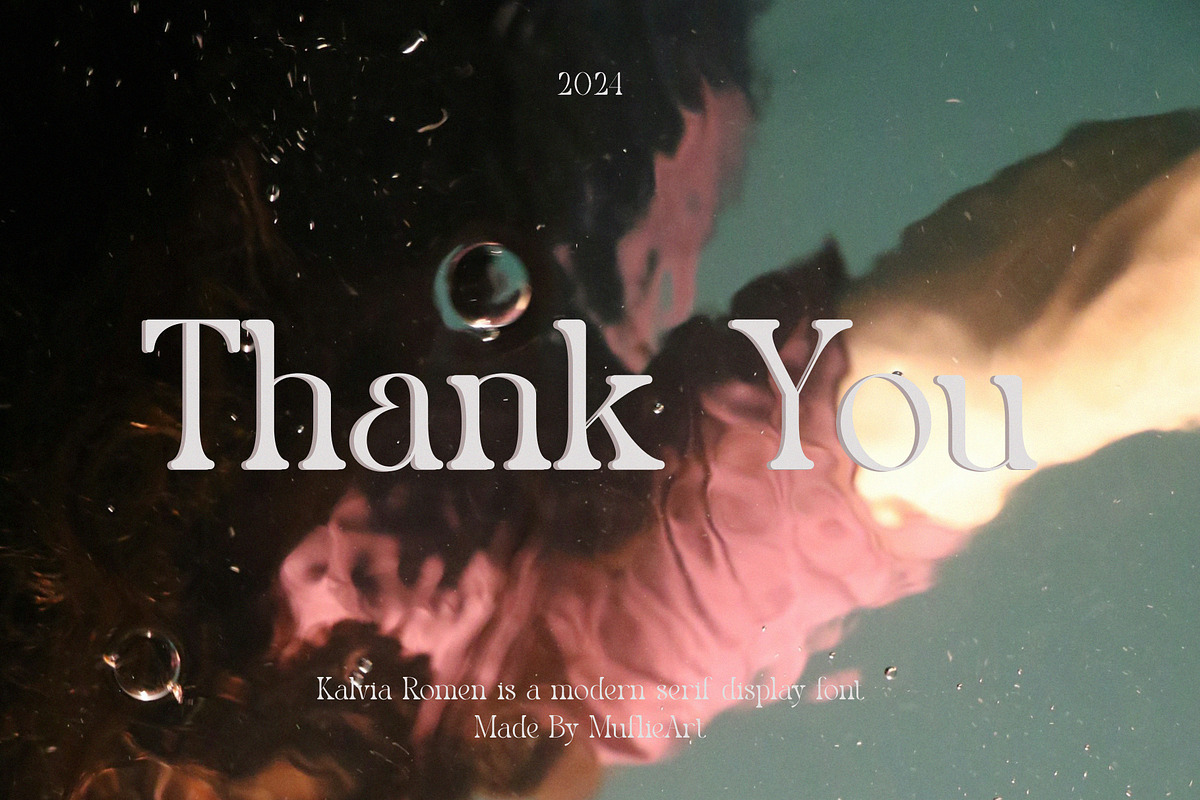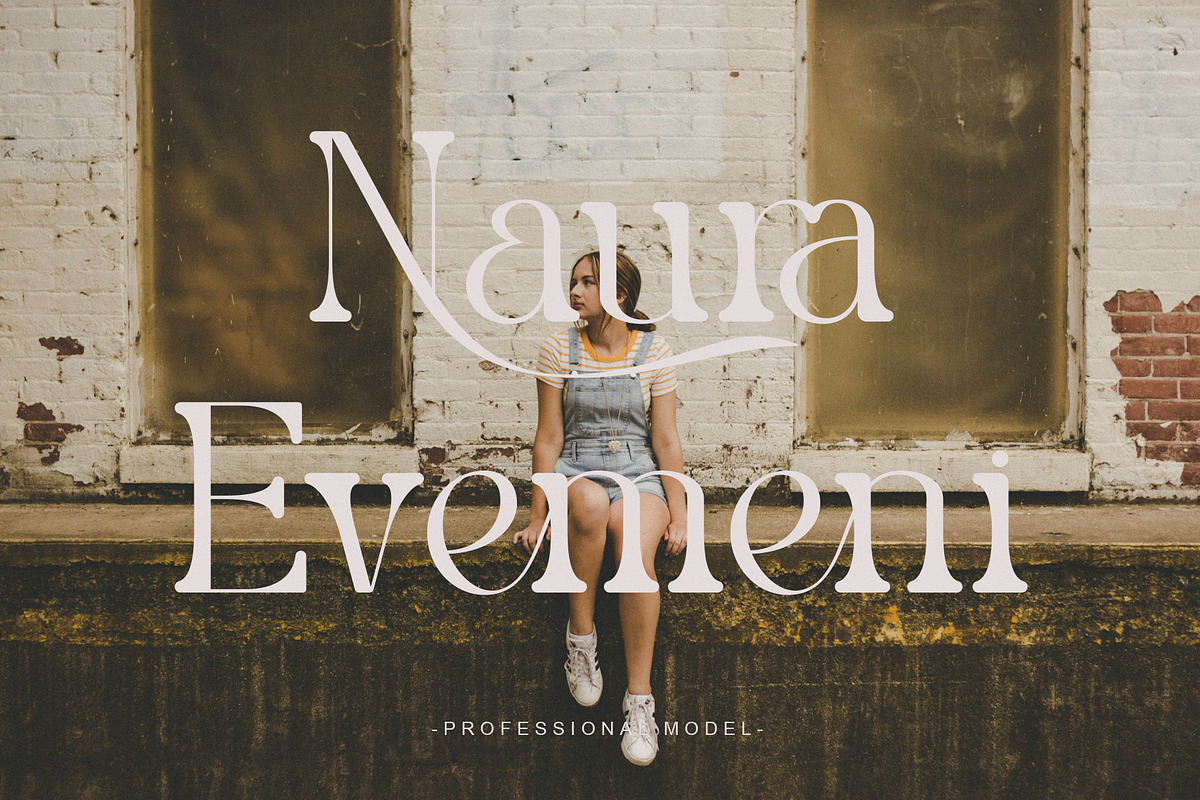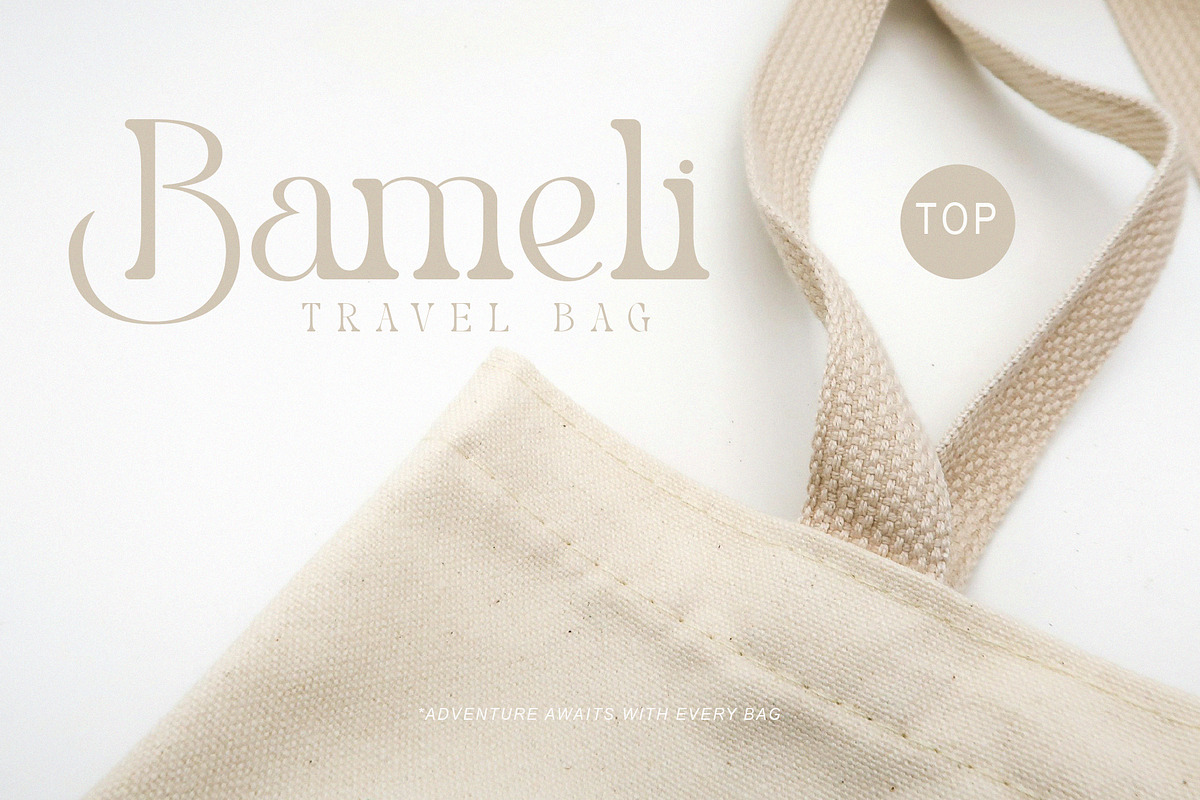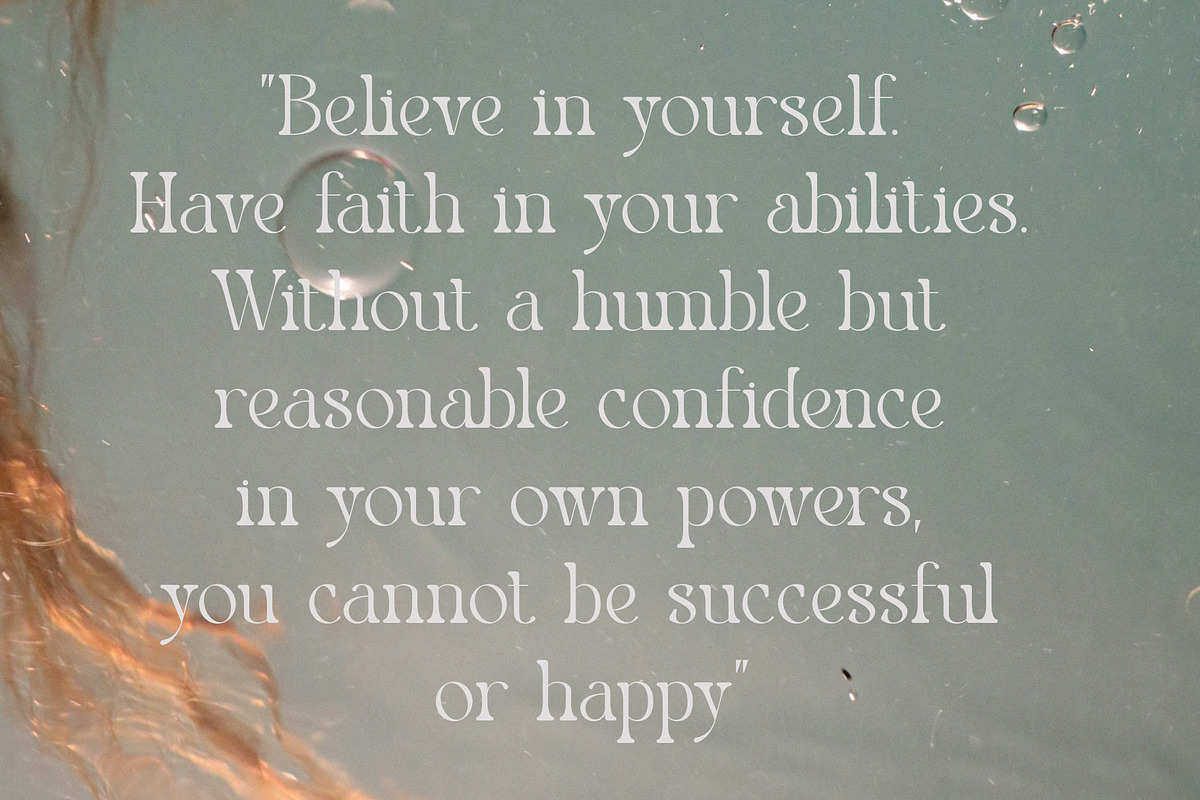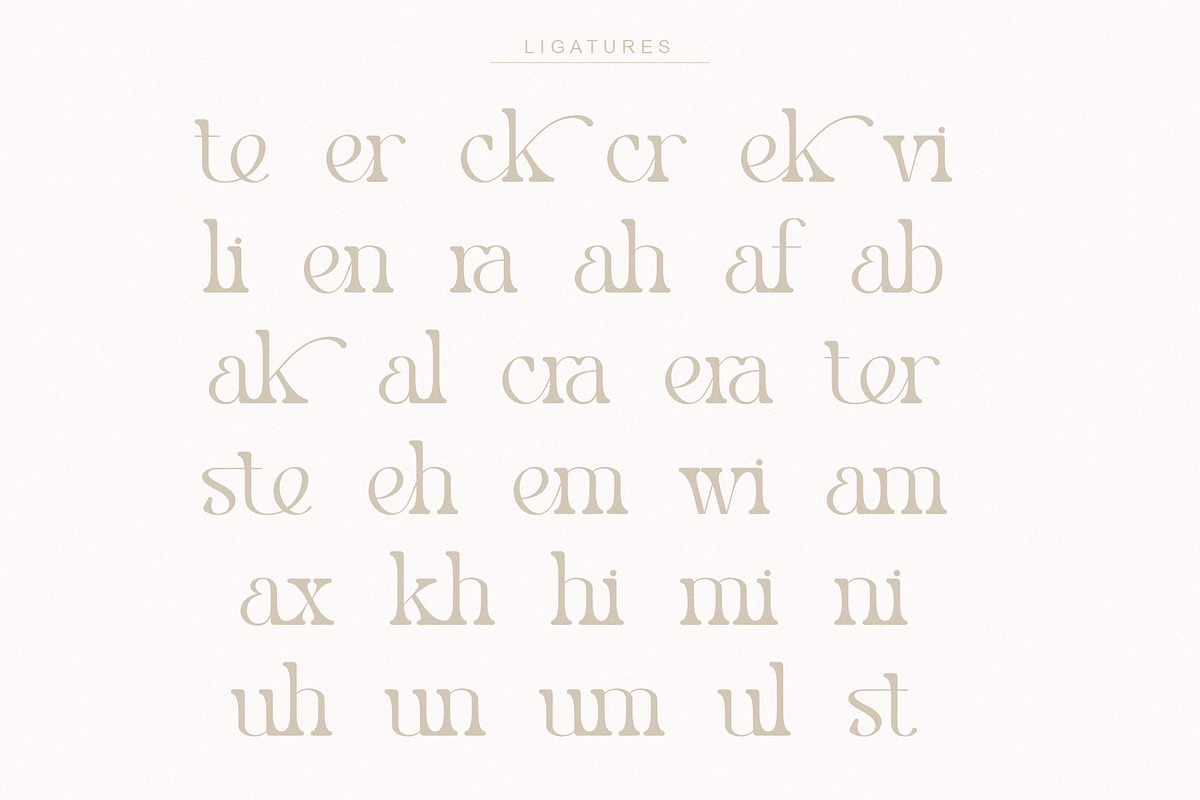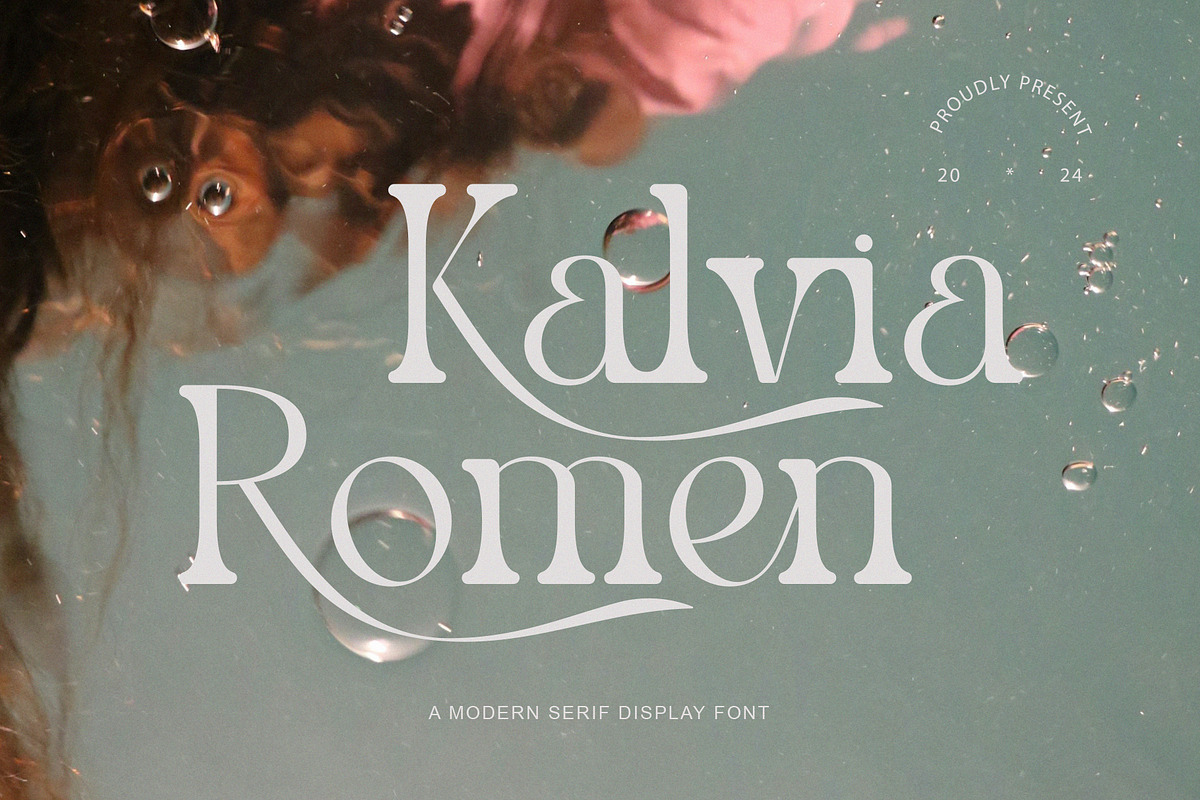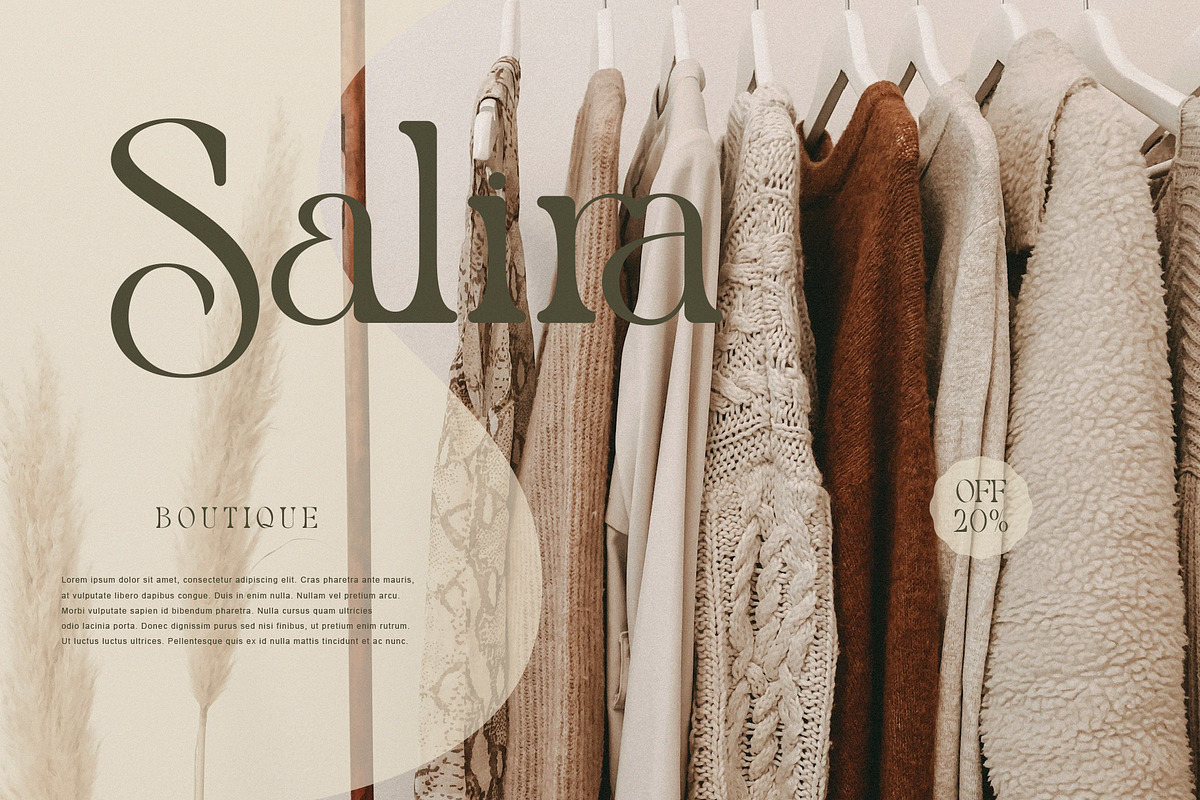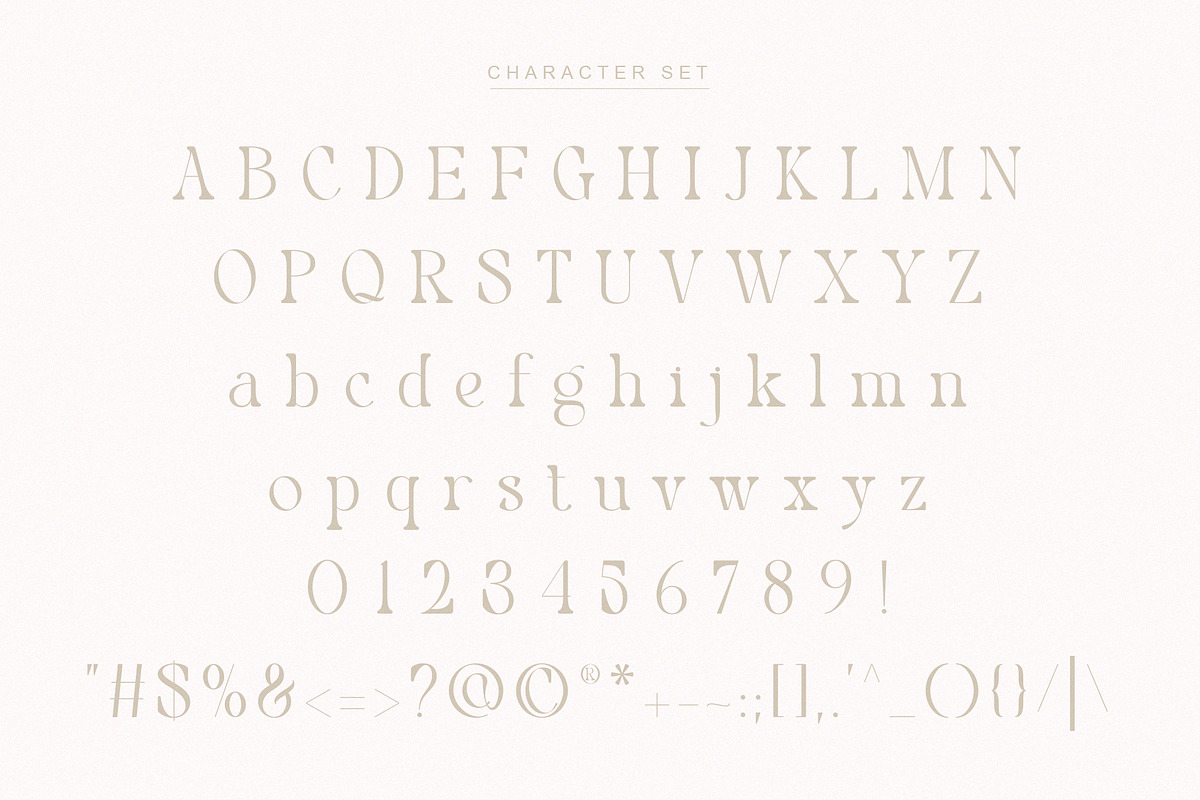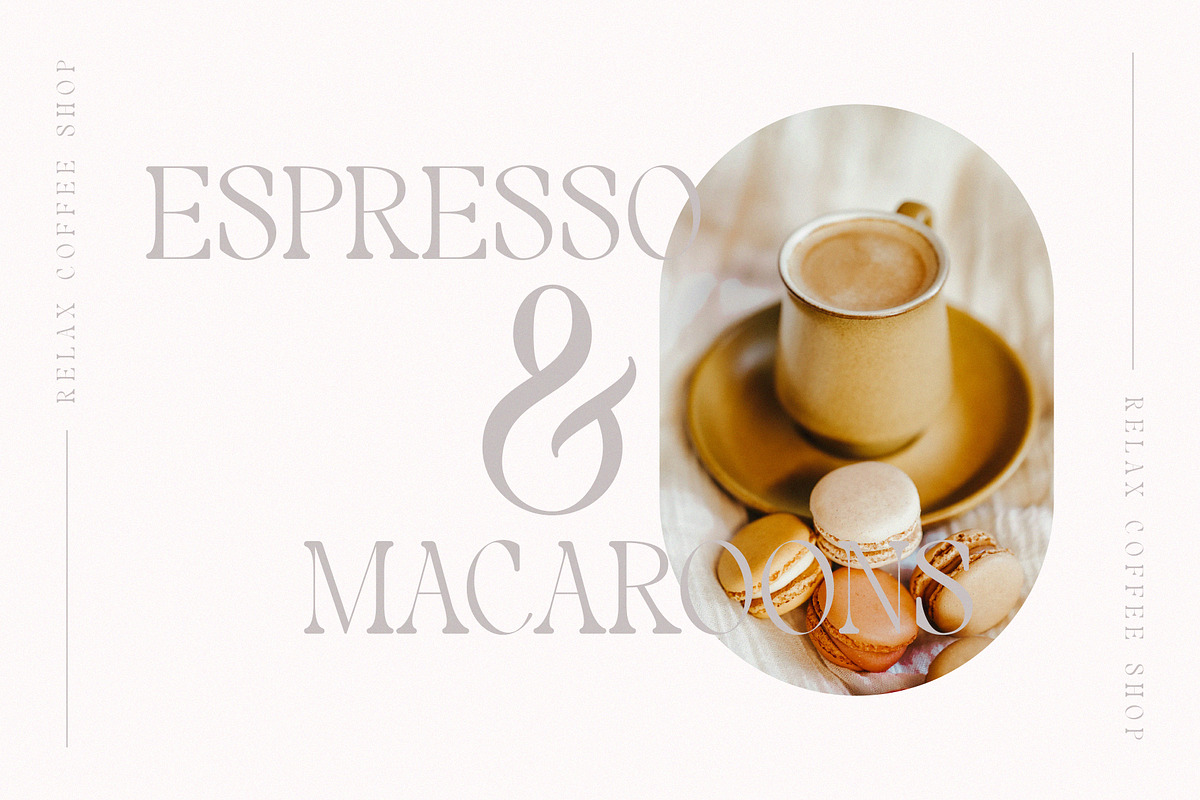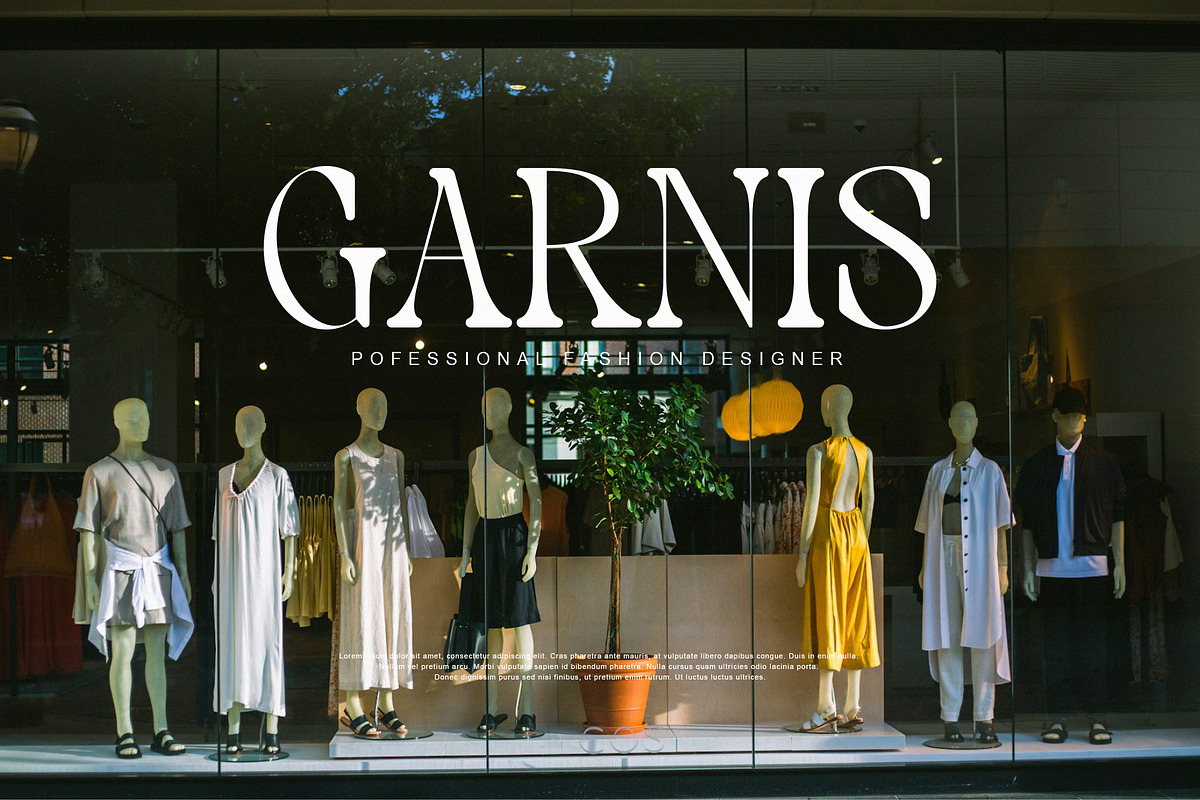
Kalvia Romen
Introducing Kalvia Romen : An elegant and modern serif typeface. With its modern and minimalist appearance, Kalvia Romen brings a luxurious and clean style to your projects such as websites, modern logos, branding identities, social media quotes, wedding stationery and various other needs!
Kalvia Romen displays unique and classy capital letters A to Z and is also equipped with ligatures and alternative letters so that it becomes a beautiful font that can be adapted to various large projects that you want.